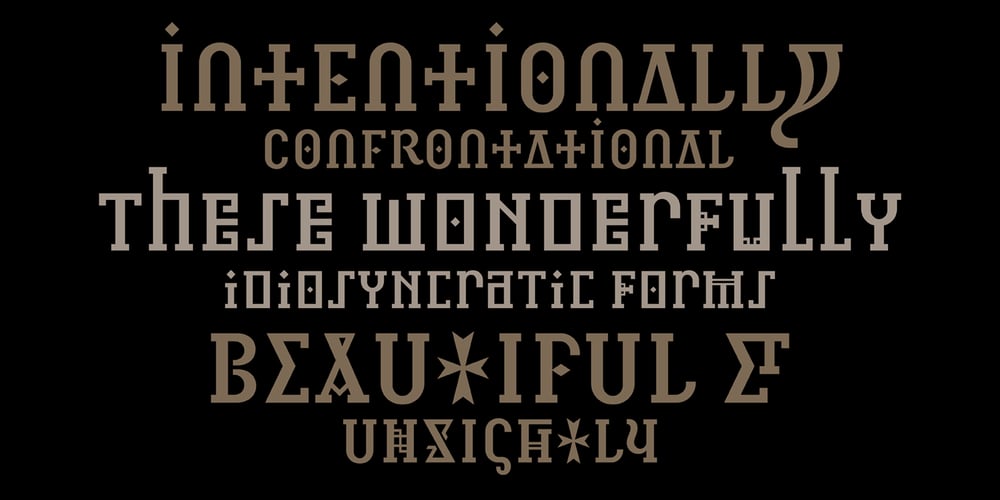
Infidel Font Family was designed by Marcus Leis Allion, Jonathan Barnbrook and published by Barnbrook Fonts. Infidel contains 1 styles and family package options. Infidel is based upon letterforms from the Lindisfarne Gospels and other manuscripts and bibles from across the Middle Ages. These are wonderfully idiosyncratic forms; some beautiful, others unsightly, but all far away from what we recognise as legible letterforms, today.